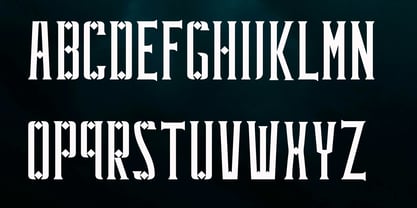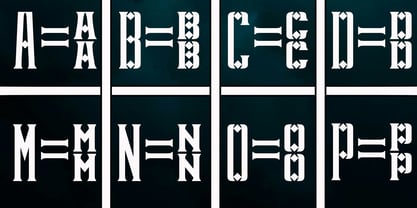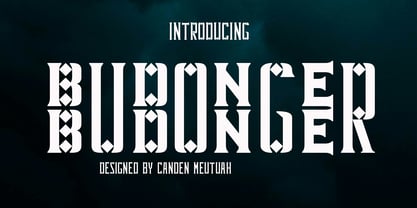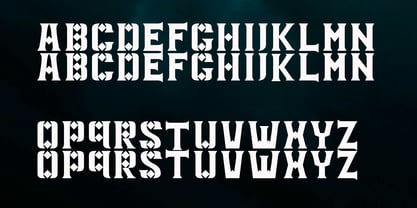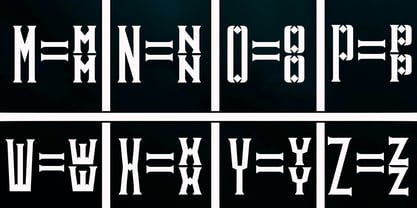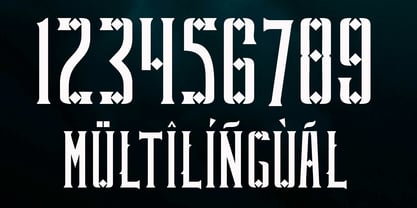
Budonger
by Canden Meutuah
The Budonger Font Family was designed by Canden Meutuah and published by Canden Meutuah. Budonger contains 1 styles.
Bubonger is a bold and creative display font that combines modern vintage style with unique geometric shapes. This sans serif typeface features tall, condensed letters with eye-catching diamond cutout details, giving every character a distinctive and artistic look. Bubonger is perfect for branding, logo design, posters, packaging, merchandise, album covers, and any project that needs a strong visual identity. Its stylish and decorative appearance makes it ideal for creating headlines and typographic compositions that truly stand out. Bubonger offers a perfect balance between classic inspiration and contemporary flair, making it a must-have font for designers looking to elevate their creative work with unique typography. This modern display font ensures your designs remain professional, memorable, and full of character.